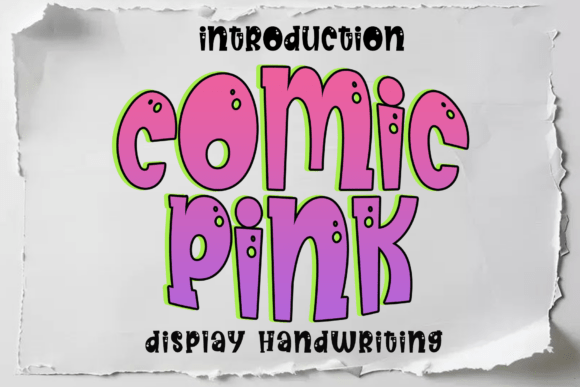
The Perfect Blend of Quirkiness and Elegance: Comic Pink Font
As designers, we’ve all been there – staring at a blank page, searching for the perfect font to bring our creative vision to life. And then, it happens – you stumble upon that one font that makes everything click. For me, it was the moment I discovered the Comic Pink Font. Its playful, handwritten style immediately caught my attention, and I knew I had to learn more.
The Comic Pink Font is a simple yet elegant font that’s perfect for a wide range of design projects, from logos and branding to invitations and social media posts. Its classy, modern look makes it a valuable asset for designers who want to add a touch of whimsy to their work without sacrificing sophistication. With its versatility and charm, the Comic Pink Font is a must-have for any creative looking to elevate their designs.
Comic Pink Font Key Features
- Font Family: Comic Pink is a sans-serif font family designed for digital use, particularly in comic books and graphic novels.
- Size: Comic Pink font comes in multiple weights, ranging from Light to Extra Bold, allowing for a wide range of design applications.
- Resolution: Designed for on-screen use, Comic Pink font is optimized for high-resolution displays, making it ideal for digital comics, e-books, and web comics.
- Unique Characteristics: The font’s distinctive, hand-drawn feel and rounded edges give it a friendly, approachable appearance, making it well-suited for comic book art and children’s literature.
Comic Pink Font Review
When I first saw the Comic Pink font, I was immediately drawn to its playful and quirky vibe ✨. The font’s unique blend of rounded edges and bold lines gives it a fun, cartoon-like feel that’s perfect for kids’ books, comic strips, and other lighthearted projects. The font also comes in a range of weights and styles, making it easy to customize to fit your needs.
One of the things I love about Comic Pink is its versatility ✨. It’s great for titles, headings, and body text, and it even works well for logos and branding. The font is also highly legible, making it easy to read even at small sizes.
- ⚠️ Limited to a more playful and cartoon-like style, which may not be suitable for all projects
- ⚠️ May not be as versatile as more traditional fonts, such as sans-serif or serif fonts
- ⚠️ Some users may find the font too bold or overwhelming, especially at larger sizes
Overall, I think Comic Pink is a great addition to any designer’s toolkit ✨. While it may have some limitations, its unique style and versatility make it a great choice for a wide range of projects. Whether you’re working on a children’s book, a comic strip, or just need a fun and playful font for a project, Comic Pink is definitely worth checking out.
Tips for Getting the Most Out of Comic Pink Font
Comic Pink Font is perfect for creating eye-catching headlines, titles, and graphics. Use it to add a touch of whimsy and fun to your designs. Experiment with different font sizes, colors, and styles to create a unique look.
Comic Pink Font is ideal for:
– Children’s books and educational materials
– Social media graphics and advertisements
– Party invitations and decorations
– Creative writing and journaling
Alternatives to Comic Pink Font for Designers
Great Vibes Font is a playful, handwritten font that is perfect for adding a touch of whimsy to designs. It is great for use in titles, headings, and other text elements where a casual, handwritten feel is desired. Compared to Comic Pink Font, Great Vibes Font has a more modern and sleek design, making it suitable for a wider range of design projects.
Pacifico Font is a beautiful, elegant script font that is ideal for use in luxury branding, invitations, and other high-end design projects. It has a more refined and sophisticated look compared to Comic Pink Font, making it suitable for projects that require a touch of sophistication and elegance.